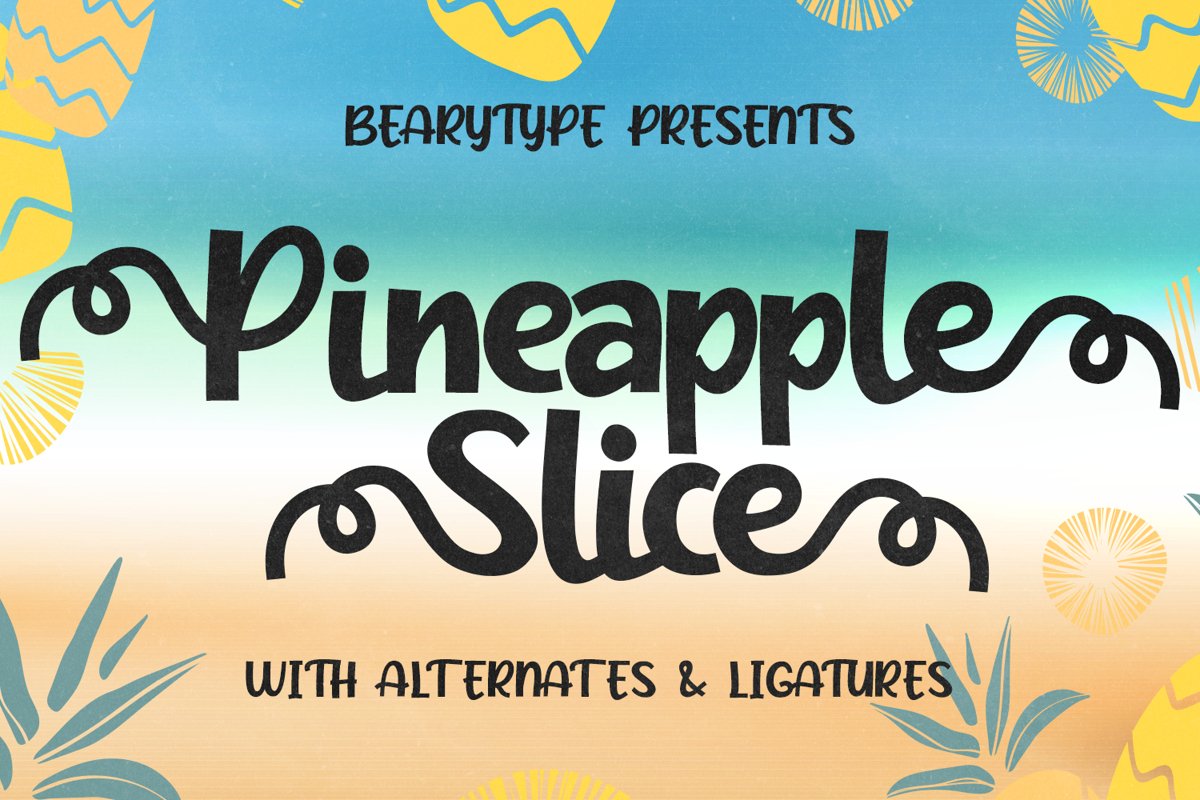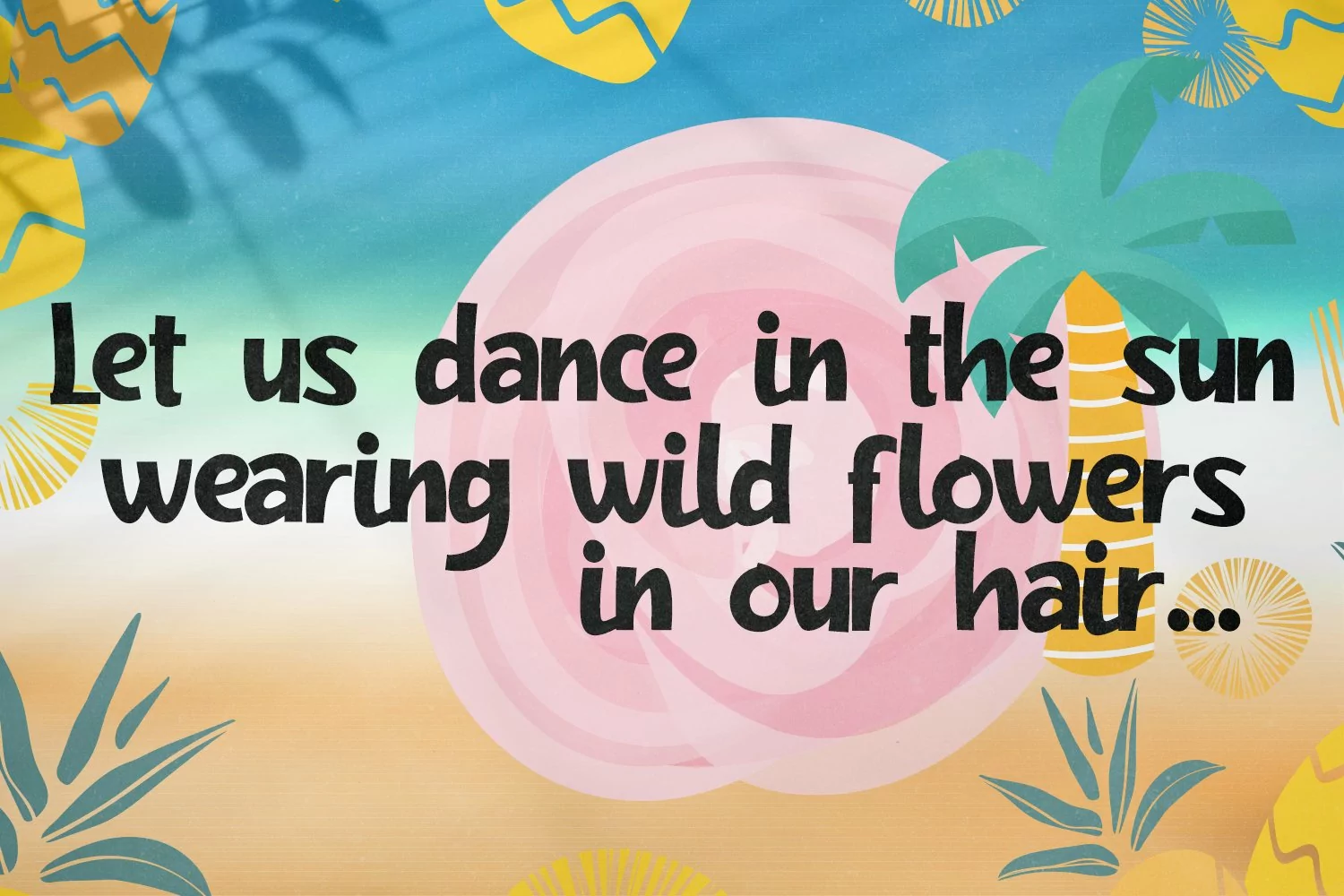
Pineapple Slice
Pineapple Slice is a cute and casual handwritten font with an incredibly friendly feel. It features gorgeous swashes and ligatures that make this script incredibly versatile. Whether you’re looking for fonts for Instagram or calligraphy scripts for DIY projects, Pineapple Slice will turn any creative idea into a true piece of art! This font includes over 250 glyphs, including over 53 alternate characters with swashes. It has over 60 extended Latin characters for language support.